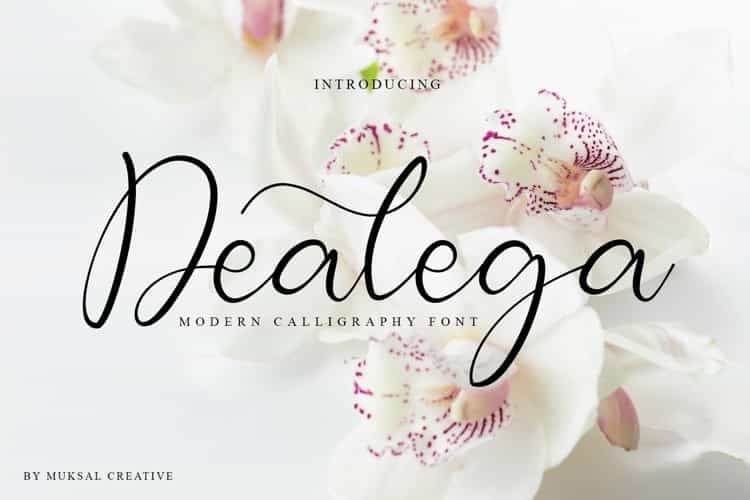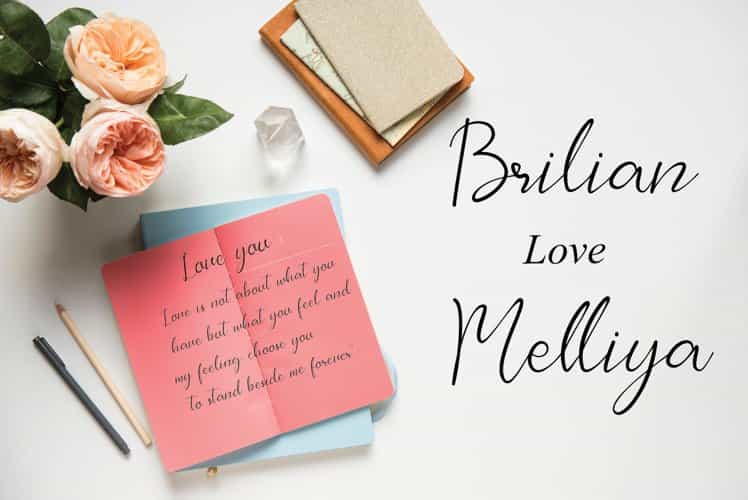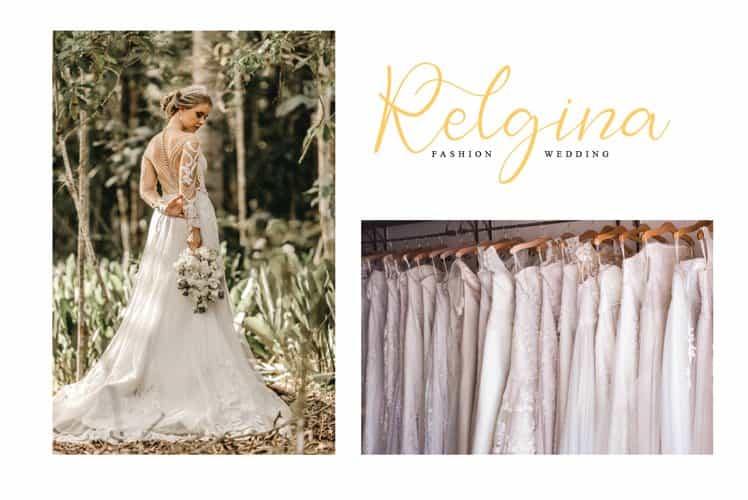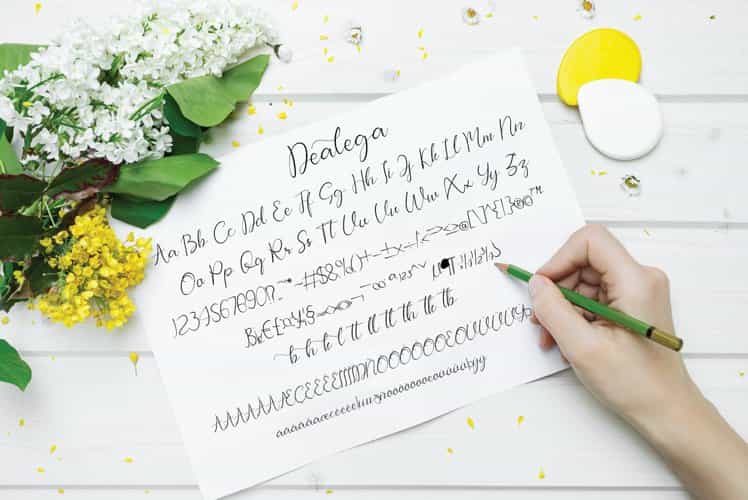
Dealega is a contemporary script typeface, suitable for any design need modern invitation design branding blog design, modern advertising design, invitations art quote, home decor Book/Cover Titles, Invitations celebrations, birthdays customized mugs, pillows and t-shirts, as well as any brush lettering requirements and more.